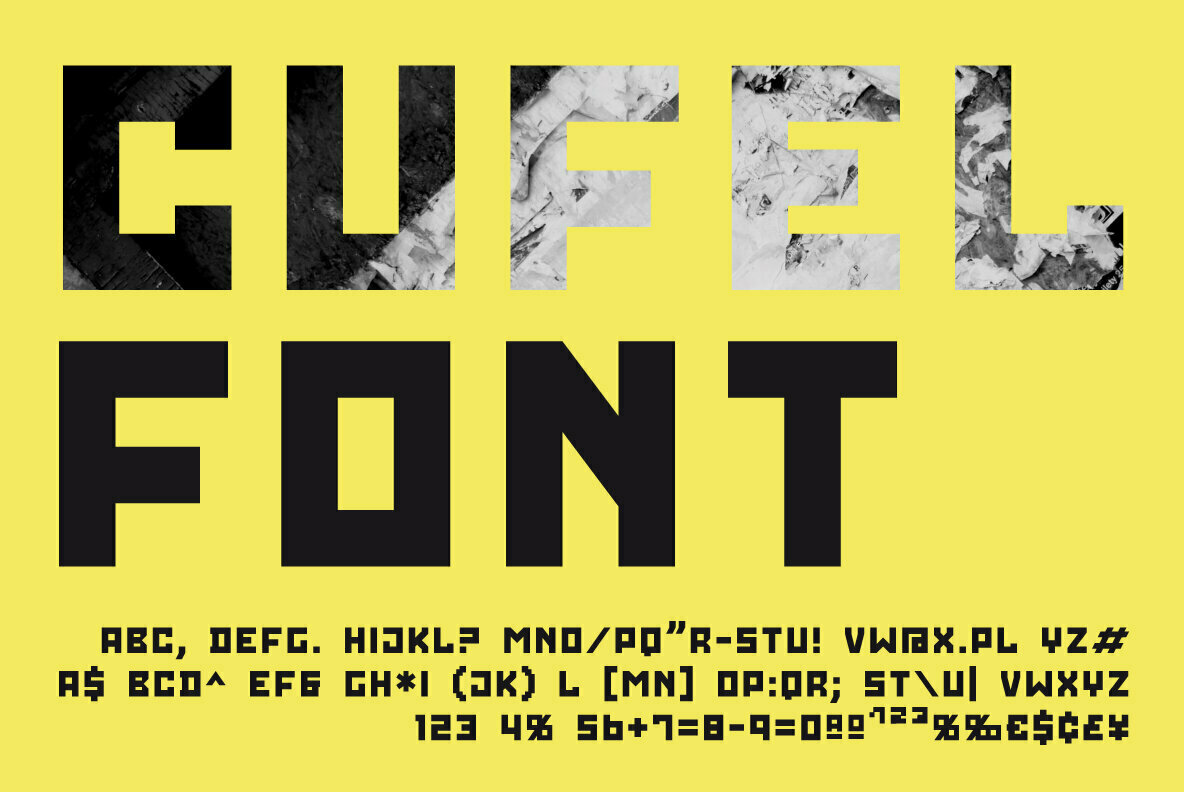
CUFEL Font
CUFEL
CUFEL is a futuristic all-caps display typeface with geometric forms. A font created initially for a series of futuristic posters. Best for bold, expressive headlines, posters, billboards and brand identities.